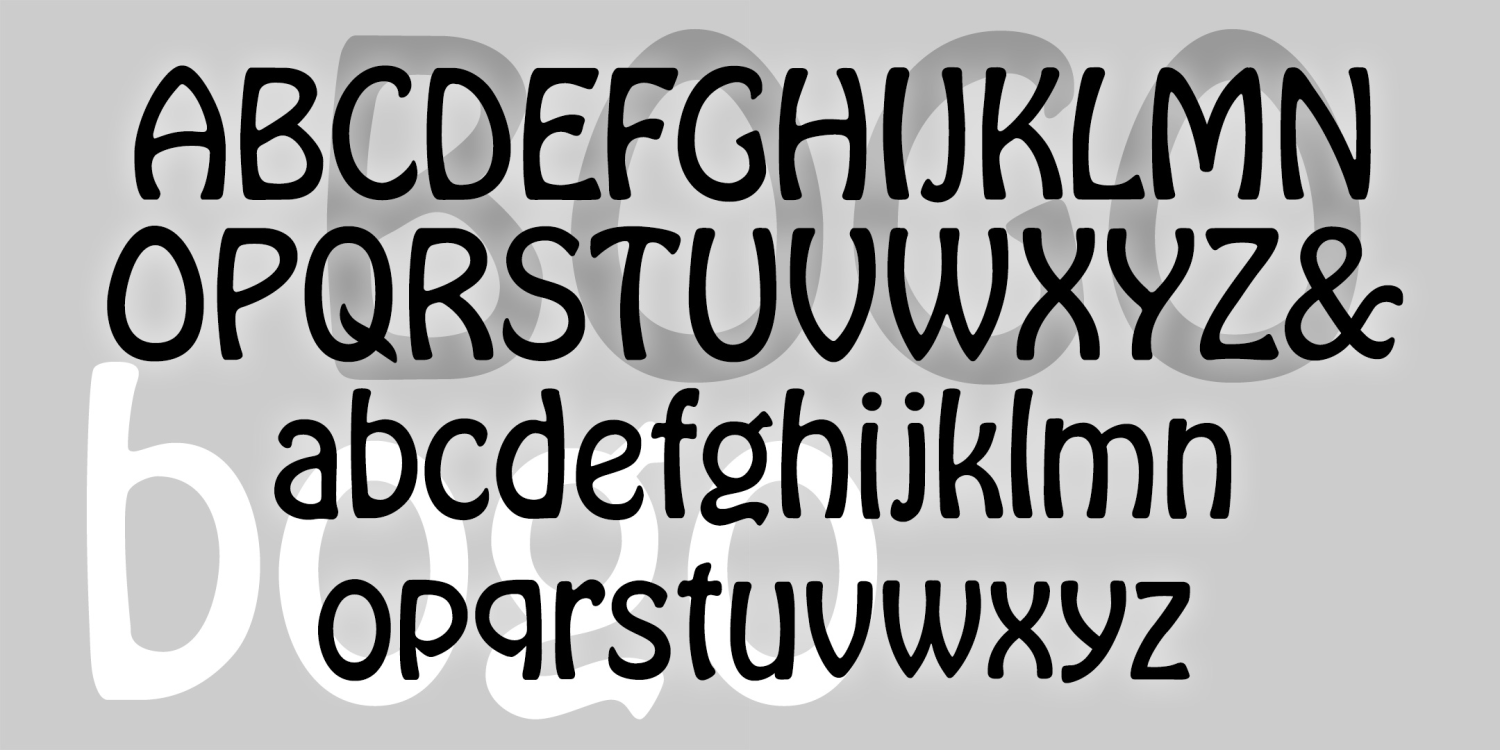
BOGO
About BOGO
BOGO is a friendly and graceful font with an Art Nouveau feel. It was inspired by "Light Hobo," once a member of that font family designed by Morris Fuller Benton and released in 1910 by ATF. The Light variant followed in 1915 but appears not…